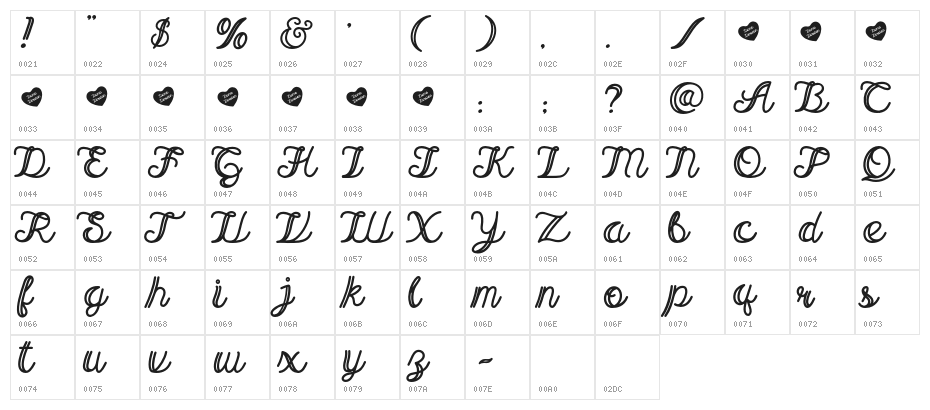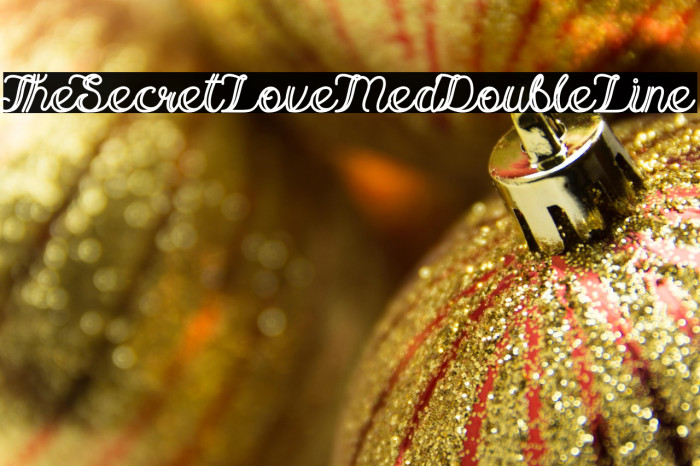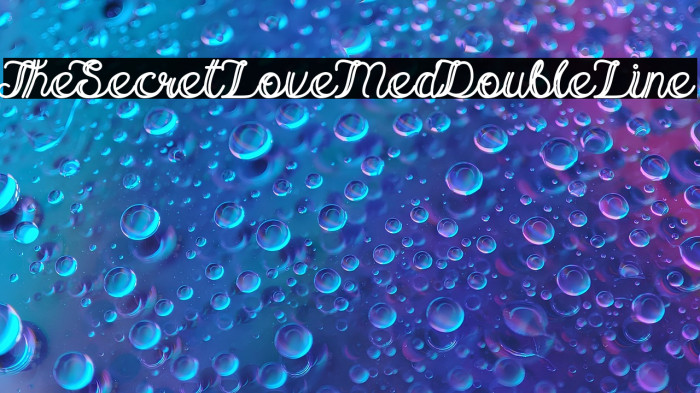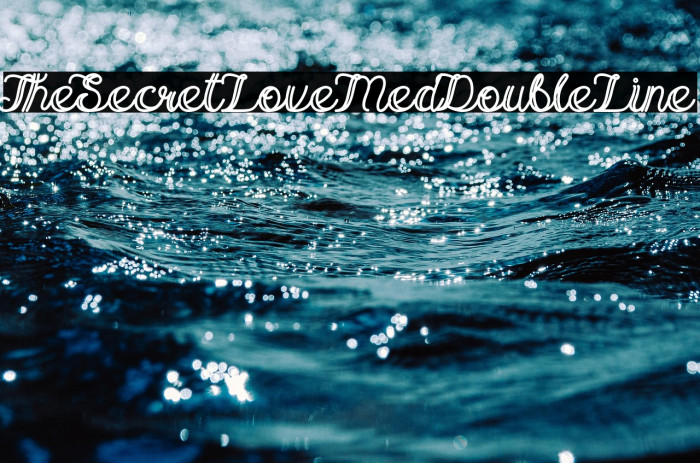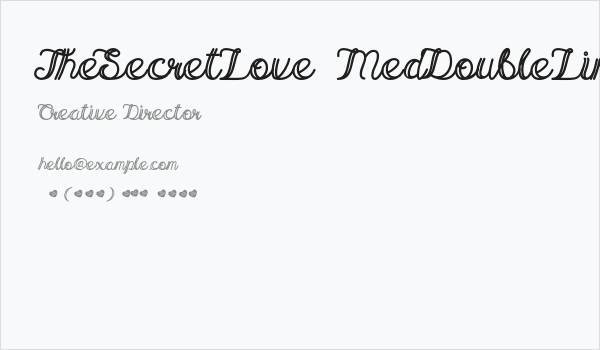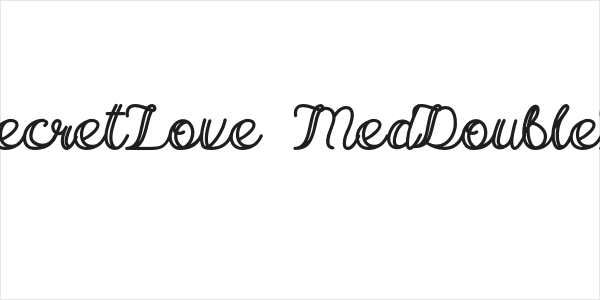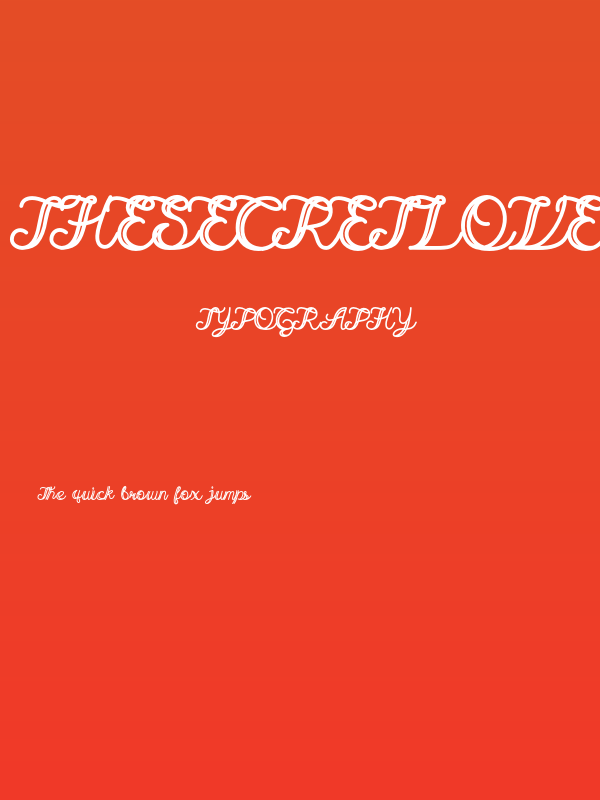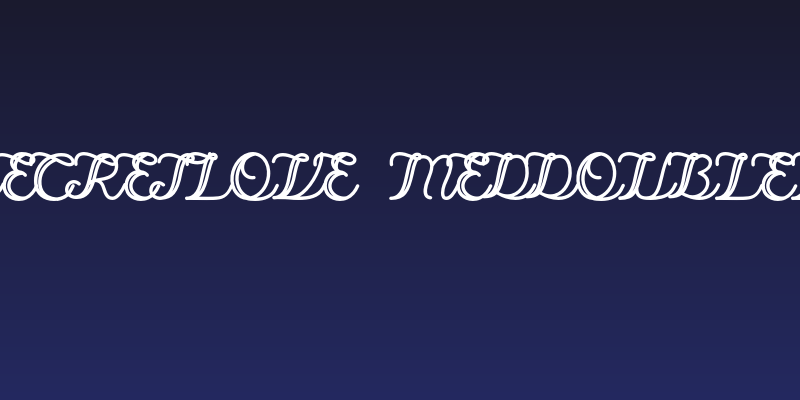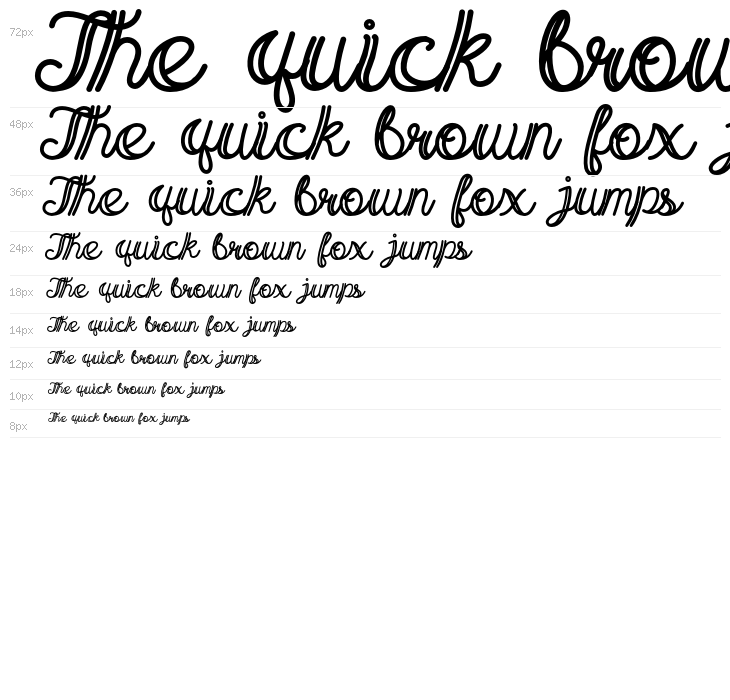
TheSecretLove-MedDoubleLine Font
TheSecretLove-MedDoubleLine Description
This font features a unique double-line script style that combines elegance with a playful twist. The uppercase letters are intricately connected, creating a flowing and cohesive appearance. The lowercase letters maintain a consistent style, with smooth curves and loops that enhance readability while adding a touch of sophistication. The numbers and special characters are designed to match the overall aesthetic, ensuring a harmonious look across all text elements. This font's distinctive style makes it suitable for creative projects where a personal and artistic touch is desired.
| Proposed Projects | Ideal for wedding invitations, greeting cards, branding, and artistic projects requiring a personal touch. |